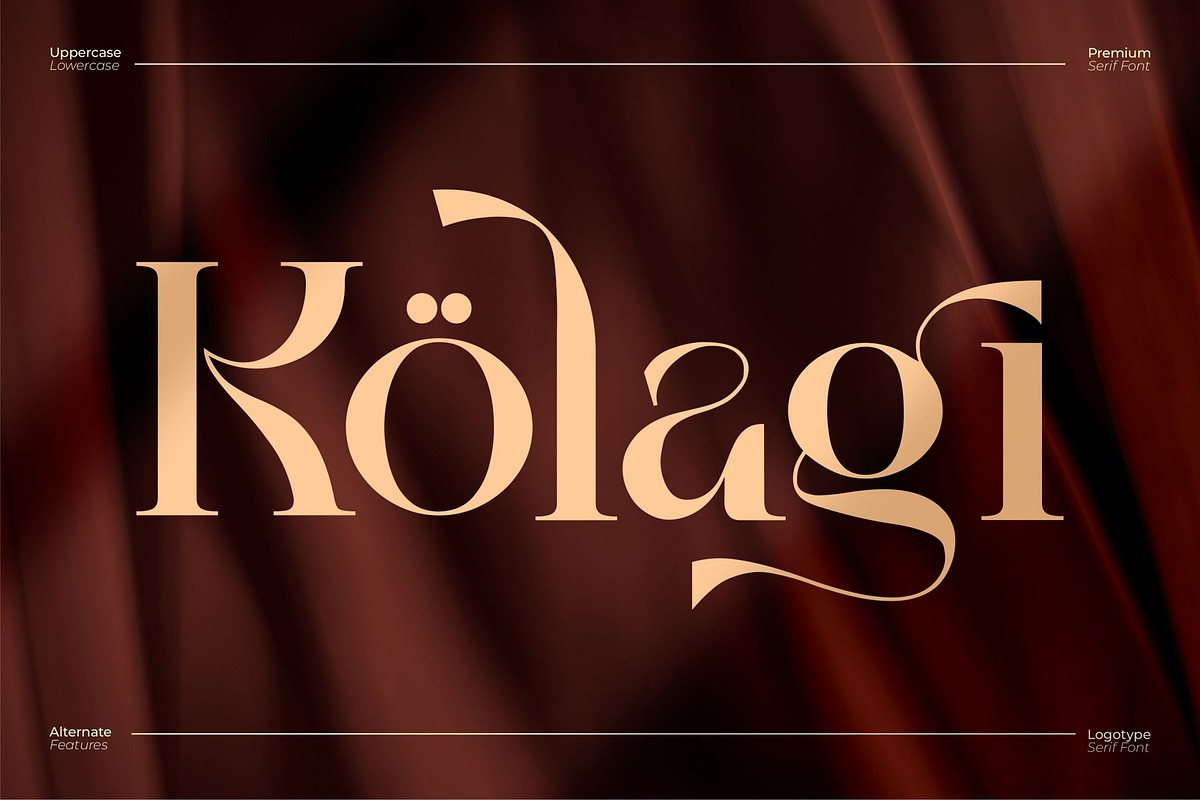
Kolagi – Classy Serif Font
Kolagi – Classy Serif Font is a premium-quality font developed to enhance your work with a polished, modern, and visually elevated look. Kolagi Serif is a modern and classy font type for all branding and logo designs. This modern and classy Serif font has a beautiful character. This font is suitable for invitation card designs, cool logos, movie titles, movie names, business cards, book titles, brand names, and various other designs. Kolagi Serif is a smooth serif font that exudes sophistication and the moment. Its stylish ligatures make this font a perfect partner for any project.